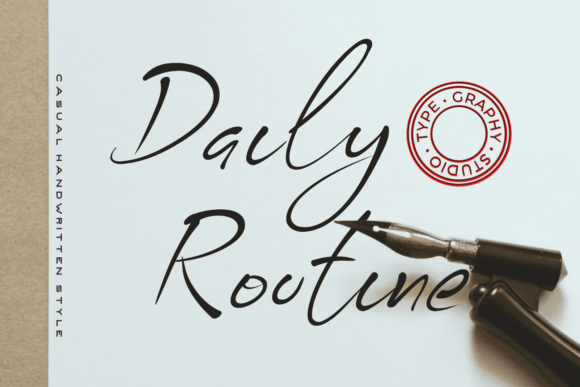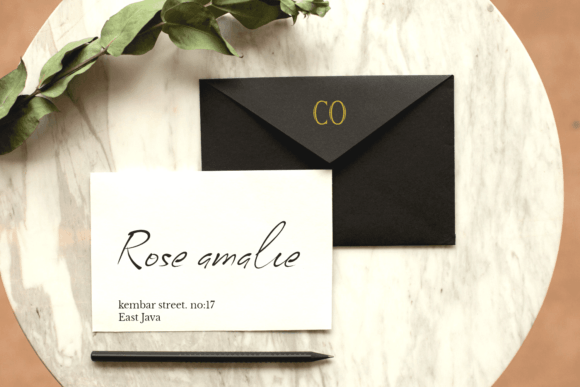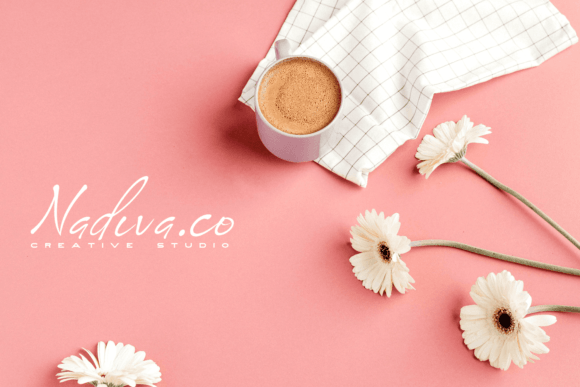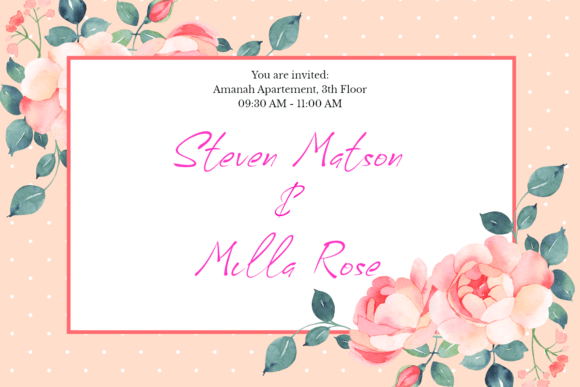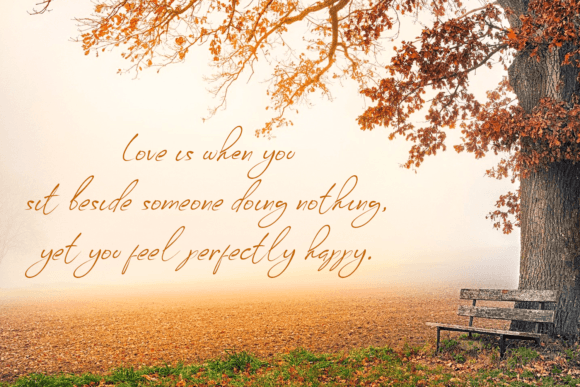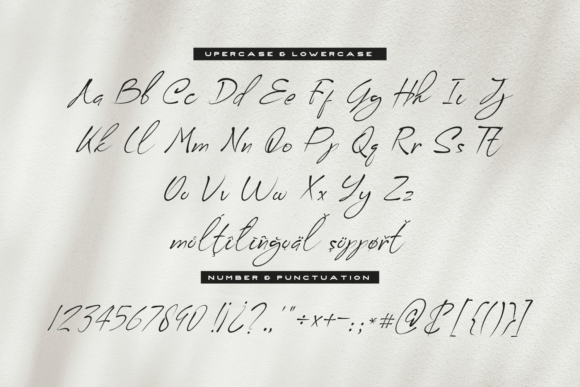
Daily Routine Font
About Daily Routine Font
“Daily Routine” is not just a font; it’s a clean, relaxed, and friendly handwritten typeface designed to add a touch of simplicity and charm to a diverse range of designs. With its neat and straightforward style, “Daily Routine” has the potential to become your favorite go-to font for a variety of occasions.
The clean and relaxed characteristics of “Daily Routine” make it versatile and suitable for a wide variety of design applications. Whether you’re working on print materials or digital platforms, this font’s friendly handwritten style brings a sense of approachability and warmth to your projects.
For casual and everyday designs, “Daily Routine” is an excellent choice. Its simplicity and cleanliness make it easy to read, conveying information in a friendly and accessible manner. This makes the font suitable for a range of applications, including social media posts, blogs, and informal communication.
The handwritten charm of “Daily Routine” can also be leveraged for personal projects. Use it in crafting personalized messages, notes, or even to add a touch of warmth to your daily planner. Its friendly nature makes it adaptable to various creative uses.
Incorporating “Daily Routine” into your designs offers an opportunity to create a clean and relaxed aesthetic. Its simplicity makes it a versatile choice for a wide range of projects, ensuring that your designs communicate effectively while maintaining a friendly and approachable tone.
As you make “Daily Routine” a part of your design toolkit, explore its potential across different contexts. Whether you’re designing for digital platforms, print materials, or personal projects, let the clean and friendly handwritten style of “Daily Routine” enhance the visual appeal of your creations.